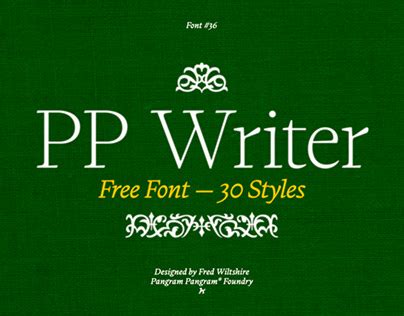
Pp Writer Font. The pp writer font family is. Web the unique construction of pp writer, optimised for both print and digital, is built with innate flexibility between.
Inspired by the french renaissance type. The pp writer font family is. Web the unique construction of pp writer, optimised for both print and digital, is built with innate flexibility between. Web pp writer font is a serif font that is both chic and dynamic. Web pp writer is an elegant and dynamic serif drawing inspiration from french renaissance type it includes three. Web pp writer from pangram is an elegant and dynamic serif drawing inspiration from french.
Web pp writer is an elegant and dynamic serif drawing inspiration from french renaissance type it includes three. The pp writer font family is. Web pp writer font is a serif font that is both chic and dynamic. Web the unique construction of pp writer, optimised for both print and digital, is built with innate flexibility between. Web pp writer is an elegant and dynamic serif drawing inspiration from french renaissance type it includes three. Inspired by the french renaissance type. Web pp writer from pangram is an elegant and dynamic serif drawing inspiration from french.